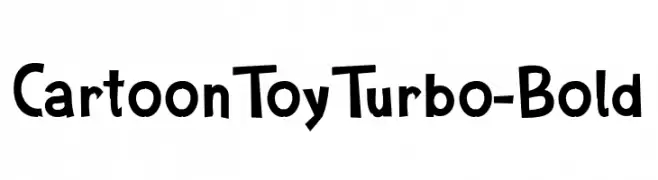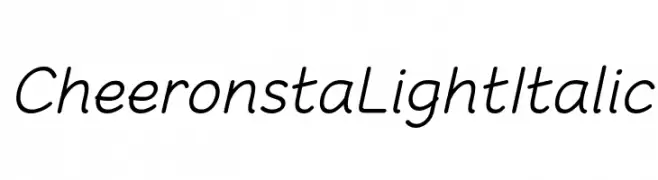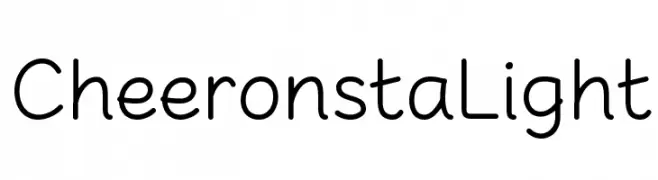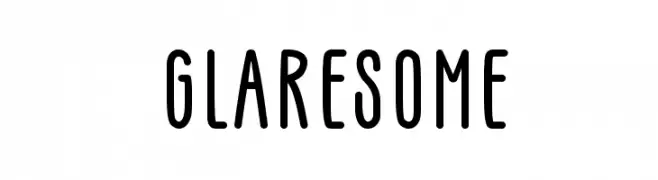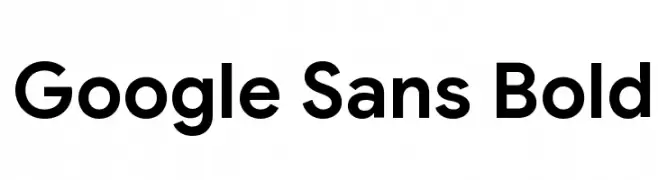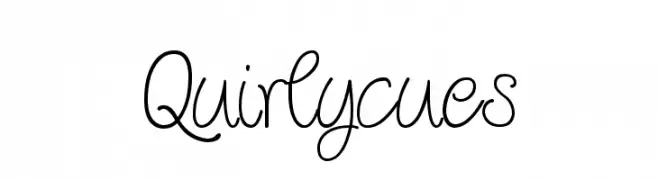
A playful, modern font with tall, narrow, and rounded characters.
A light, elegant italic font with a modern and fluid design.
A clean, modern font with rounded edges and excellent readability.
A whimsical, curly handwritten font with playful loops and dynamic strokes.
A playful, hand-drawn font with tall, narrow characters and a whimsical style.
A bold, modern sans-serif font with geometric shapes and consistent stroke width.
A bold, playful font with a cartoon-like style and rounded characters.
A playful, bold, and hand-drawn style font with rounded characters.
A bold, playful script font with rounded edges and a connected design.
A playful, bold font with rounded edges and a friendly style.